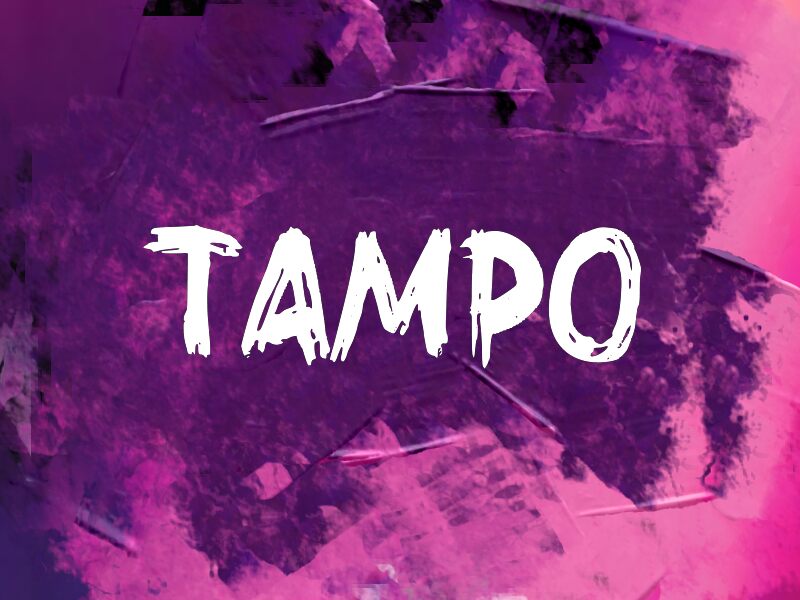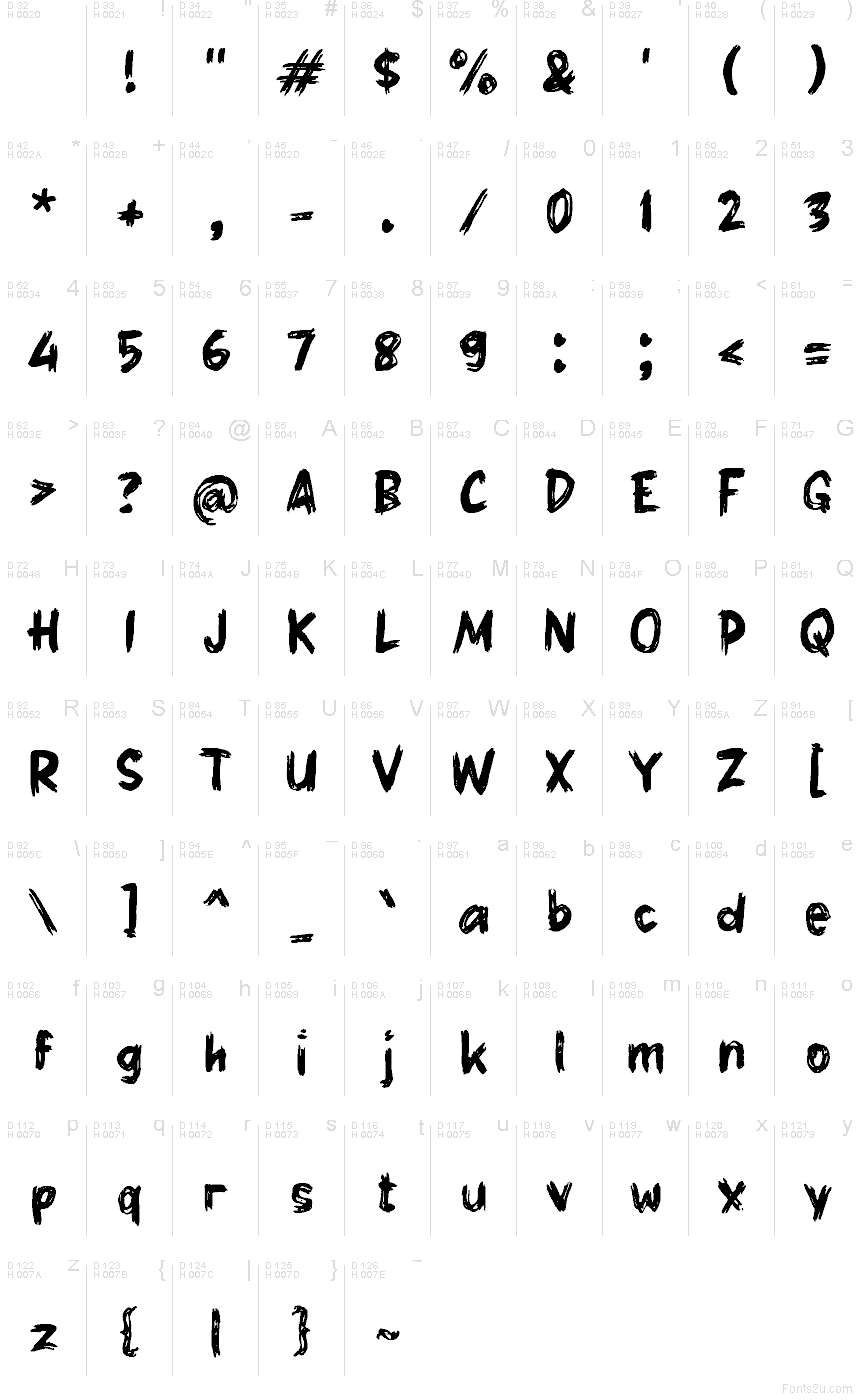
TAMPO
Tampo font by wepfont.com is a free trash script typeface that looks like it was slapped onto a wall with a fat, dripping marker. The strokes are rough, inky, and uneven, with splatters and broken edges that feel raw and loud rather than polished. There’s a fast, impulsive rhythm to the letters, as if they were scrawled in one intense burst, giving your words a gritty, street-level presence.
Using Tampo, this free font comes to life on gig posters, zines, underground event flyers, album covers, graffiti-inspired branding, and bold social graphics. It shines when the text needs to shout, not whisper. Set it large for maximum texture, and pair it with a simple condensed sans serif so the wild, smeared energy of Tampo stays in the spotlight.